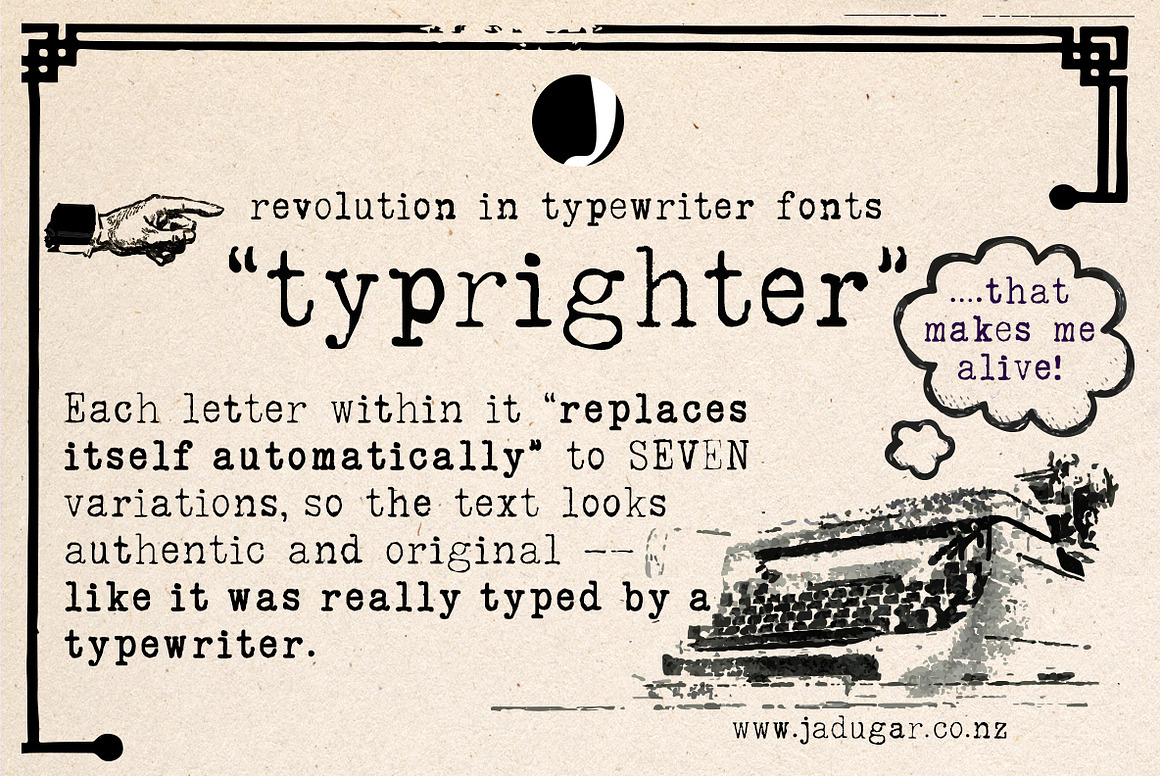
"typrighter"-Amazing Typewriter Font
Typrighter Amazing Typewriter Font is perfect for vintage branding, retro designs, creative writing projects, author websites, nostalgic advertising, manuscript layouts, indie publications, artistic posters, authentic storytelling, and classic editorial design. This distinctive typeface excels in both digital and print applications requiring authentic character.
Typrighter Amazing Typewriter Font is exciting because it captures the genuine essence of classic typewriter aesthetics with authentic letterform irregularities and mechanical charm that brings nostalgic warmth and personality to modern designs. Its distinctive character creates memorable visual experiences that connect emotionally with audiences seeking authenticity and craftsmanship.
The Typrighter Amazing Typewriter Font family includes regular, bold, condensed, distressed, clean, outline, and vintage variants, providing designers with comprehensive typographic options for various design scenarios and creative storytelling requirements.
Typrighter Amazing Typewriter Font embodies the timeless appeal of mechanical typewriting, delivering authentic vintage aesthetics for brands and projects that celebrate craftsmanship, creativity, and nostalgic charm. This remarkable typeface captures the imperfect beauty of traditional typewriter output while incorporating modern digital precision to ensure reliable performance across contemporary applications. The font's authentic character makes it particularly valuable for creative agencies, independent publishers, artisanal brands, and storytelling platforms that require typography capable of conveying genuine personality and artistic integrity.
The mechanical construction of Typrighter Amazing Typewriter Font demonstrates faithful attention to historical typewriter characteristics, with subtle irregularities and monospace rhythm that create authentic vintage appeal without sacrificing readability. This careful balance ensures excellent performance in both decorative headlines and extended text applications where nostalgic atmosphere enhances message delivery. The font's organic qualities make it especially effective for brands in publishing, creative services, handcrafted products, and entertainment industries that value authenticity and personal expression.
Creative professionals working with Typrighter Amazing Typewriter Font Free Download will appreciate the typeface's versatility across vintage and contemporary design challenges. Its nostalgic styling complements both retro-inspired and modern aesthetics, making it suitable for established brands and creative startups requiring distinctive, memorable typography. The font's authentic presence makes it particularly effective for literary magazines, creative writing platforms, artisan businesses, and cultural organizations that must communicate authenticity through genuine, characterful visual design.
Whether developing editorial content, creating brand identities, or designing marketing materials, Typrighter Amazing Typewriter Font provides the authentic charm needed for communications that celebrate creativity and craftsmanship while connecting meaningfully with audiences who appreciate genuine artistic expression and vintage aesthetics.